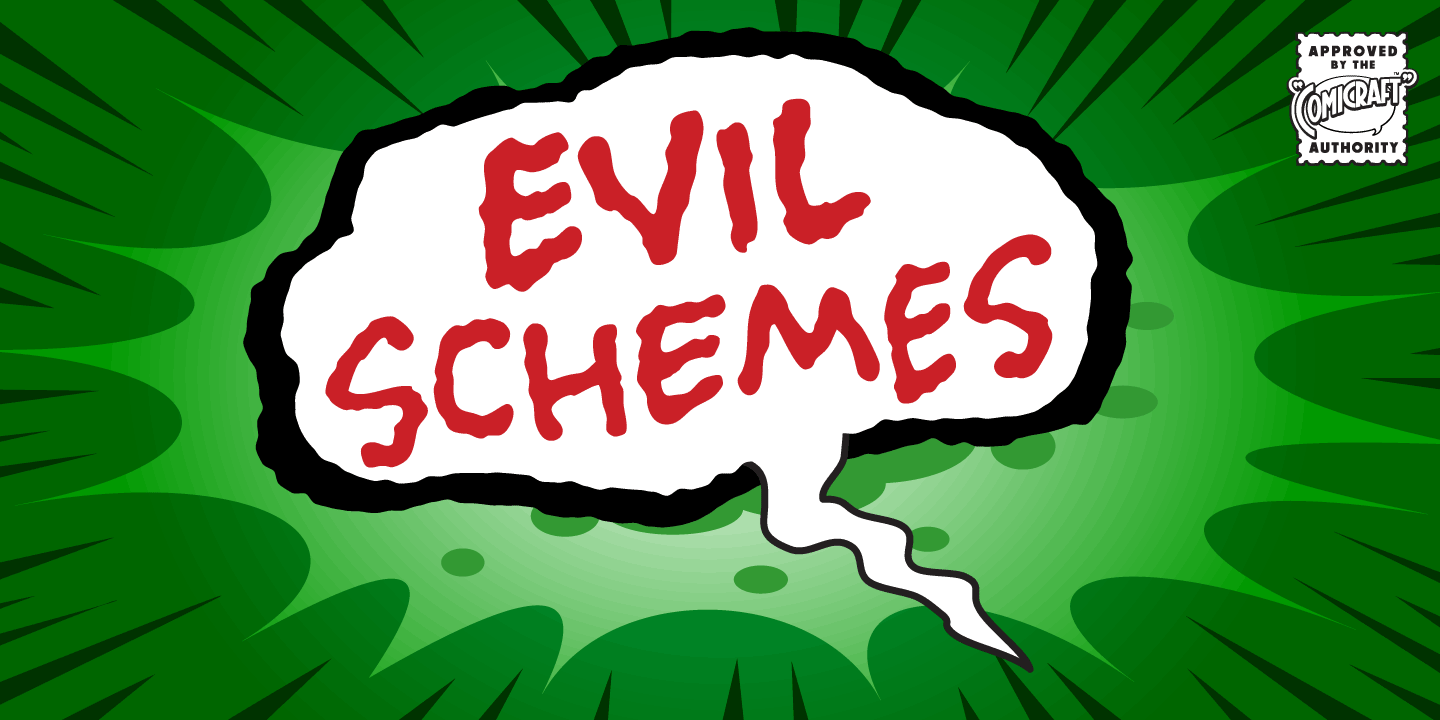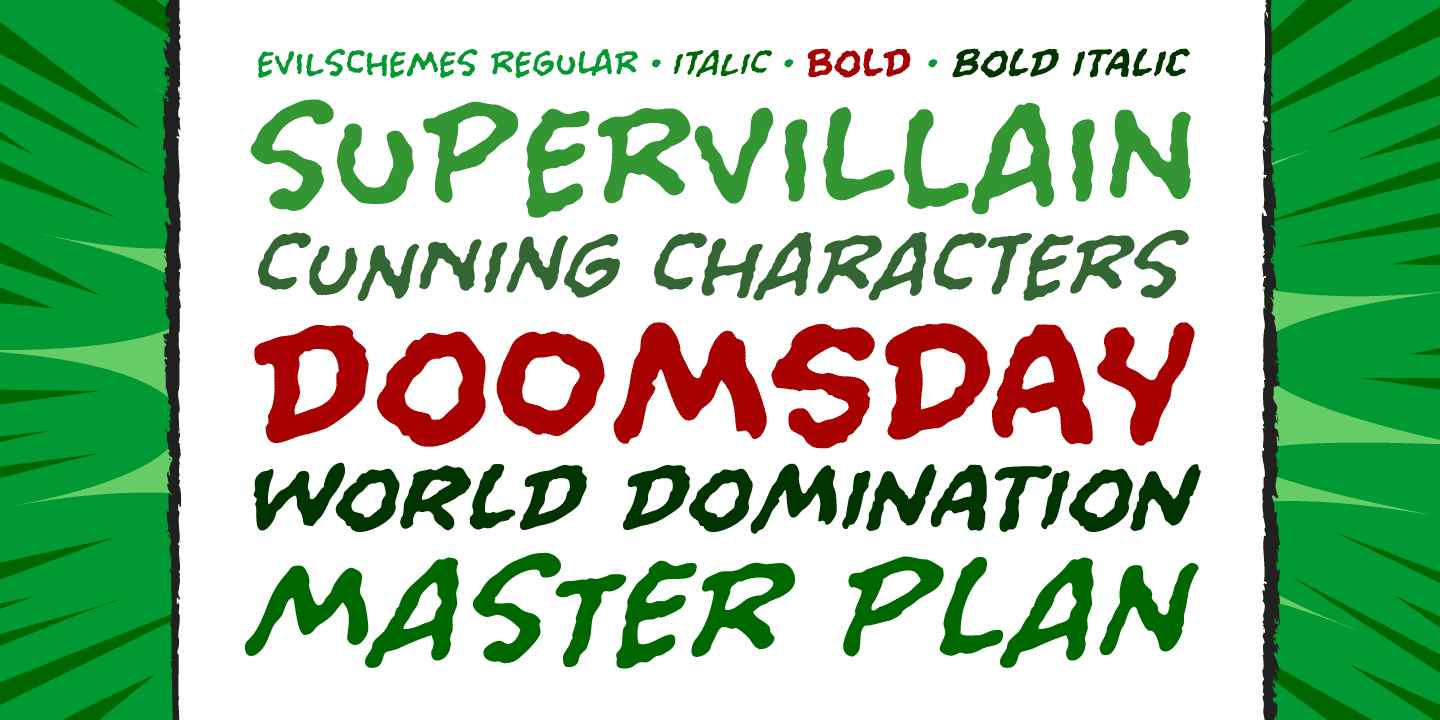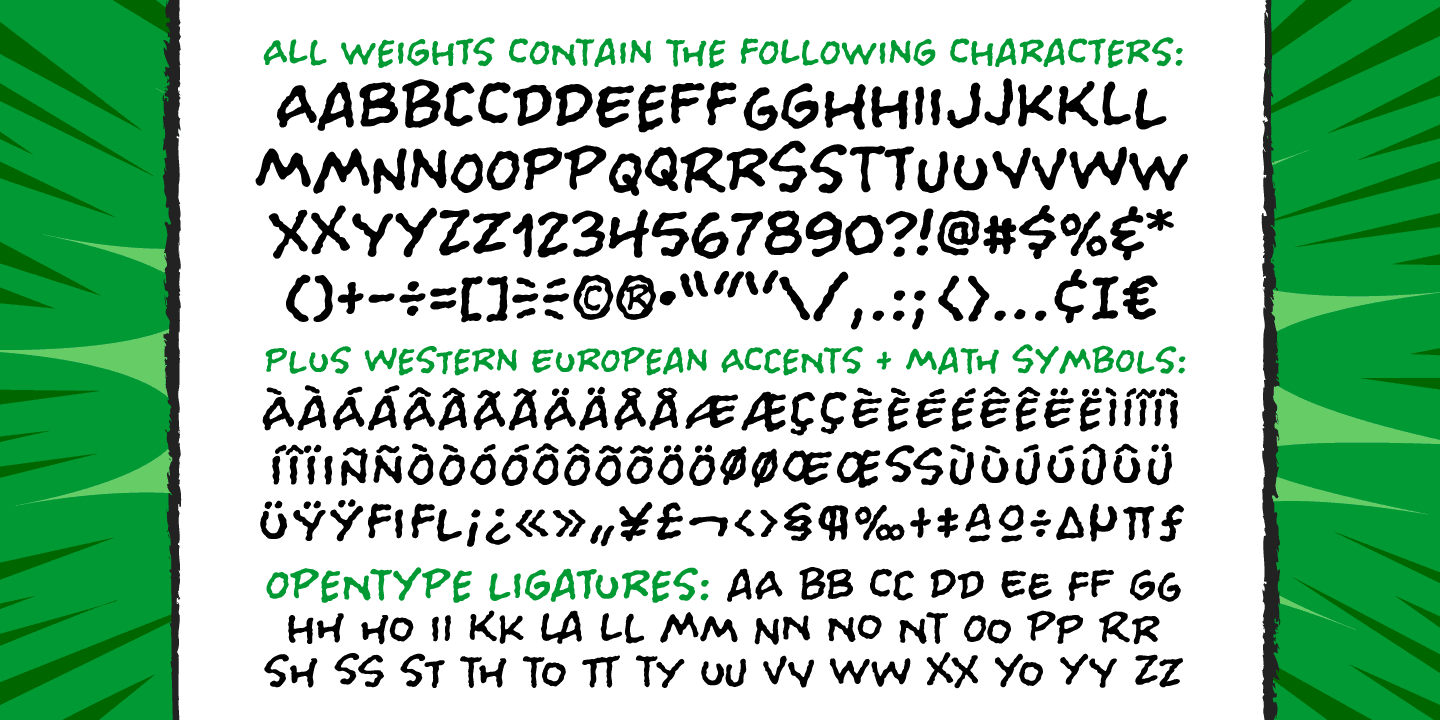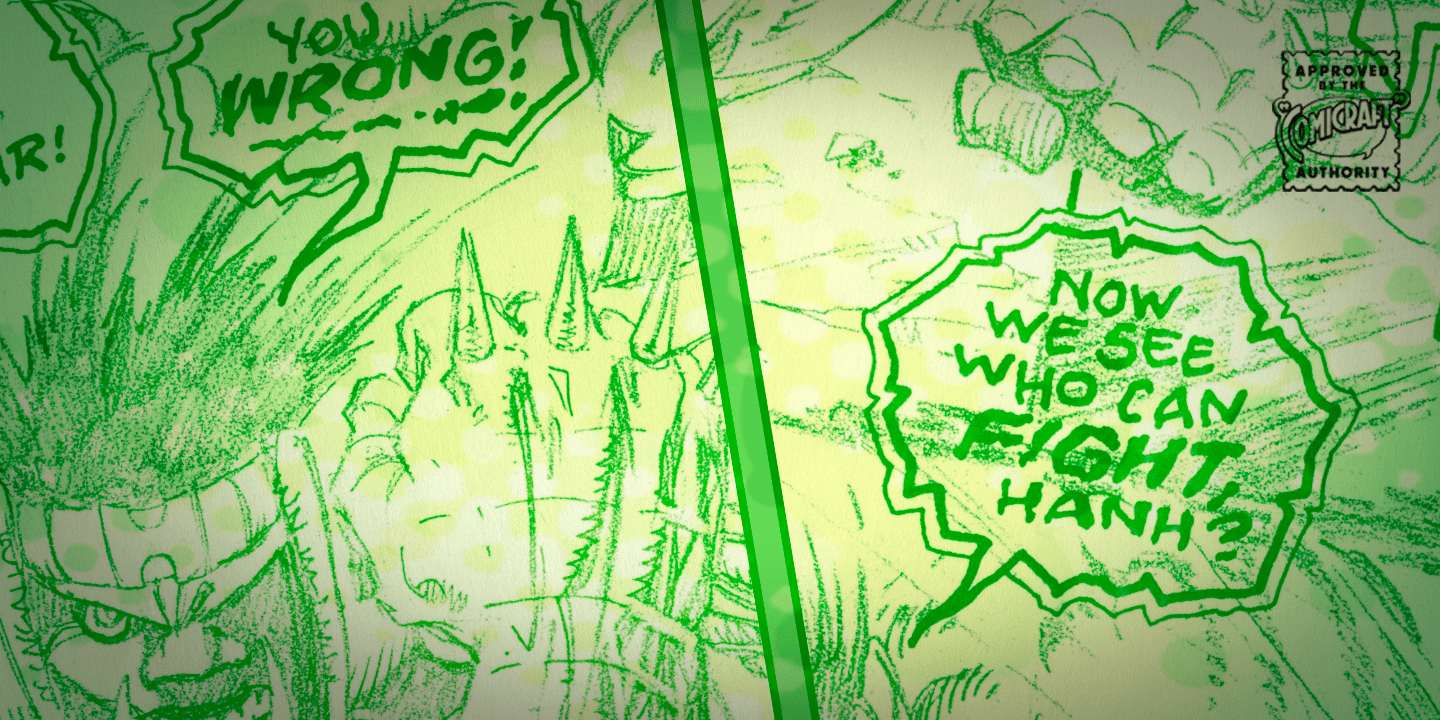
Evil Schemes
Font Family by Comicraft Fonts
Big Brother is watching you and vile Supervillains are afoot! The cunning characters involved in this font have devised a convoluted Machiavellian plot for world domination that encompasses mind parasites, twitter, deadly viruses in the public water system and possibly a nuclear dirty bomb in a downtown Metropolitan area to which they've strapped your girlfriend and a digital clock rapidly counting down to zero! Will Good Triumph and Defeat Evil?! Stay tuned...